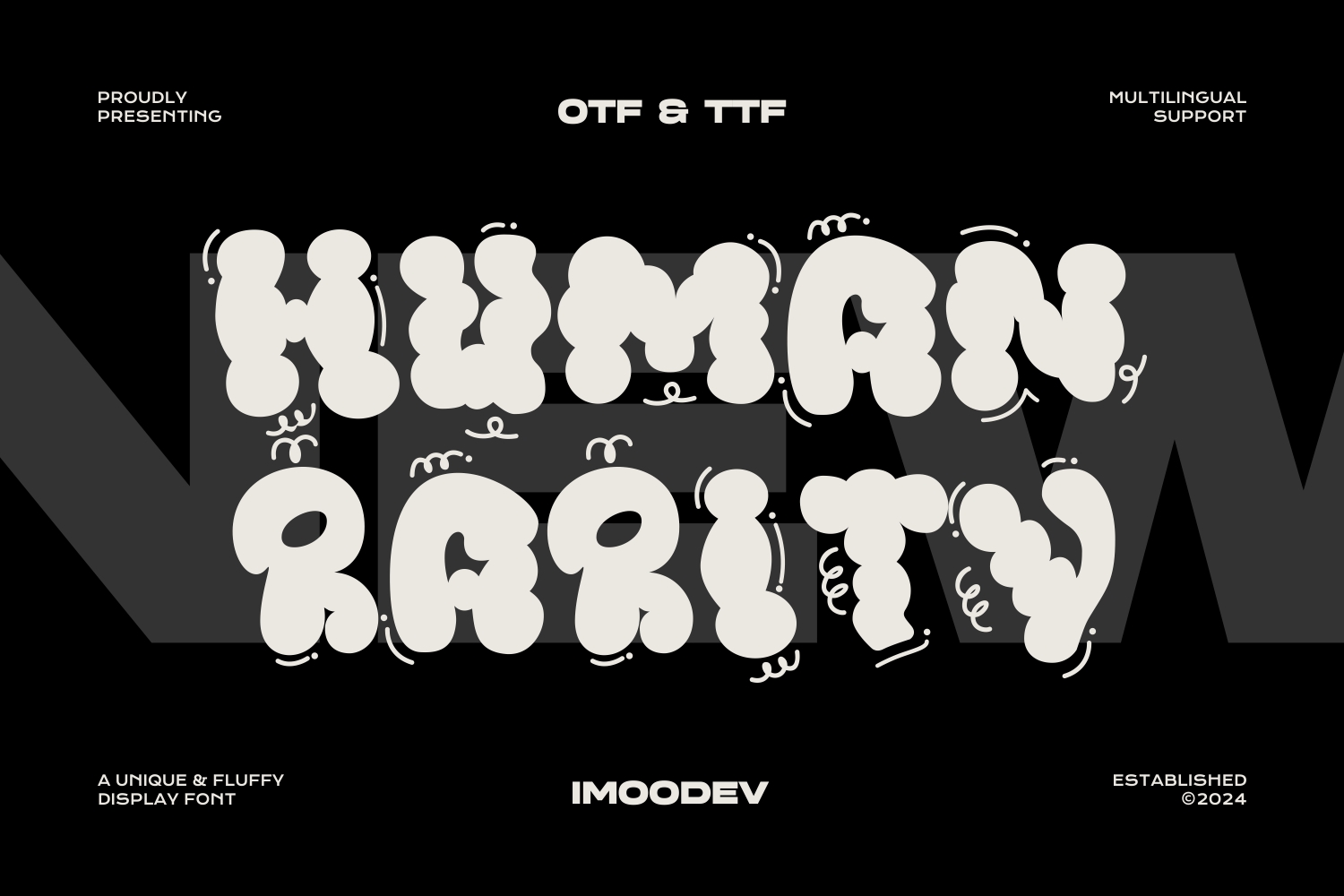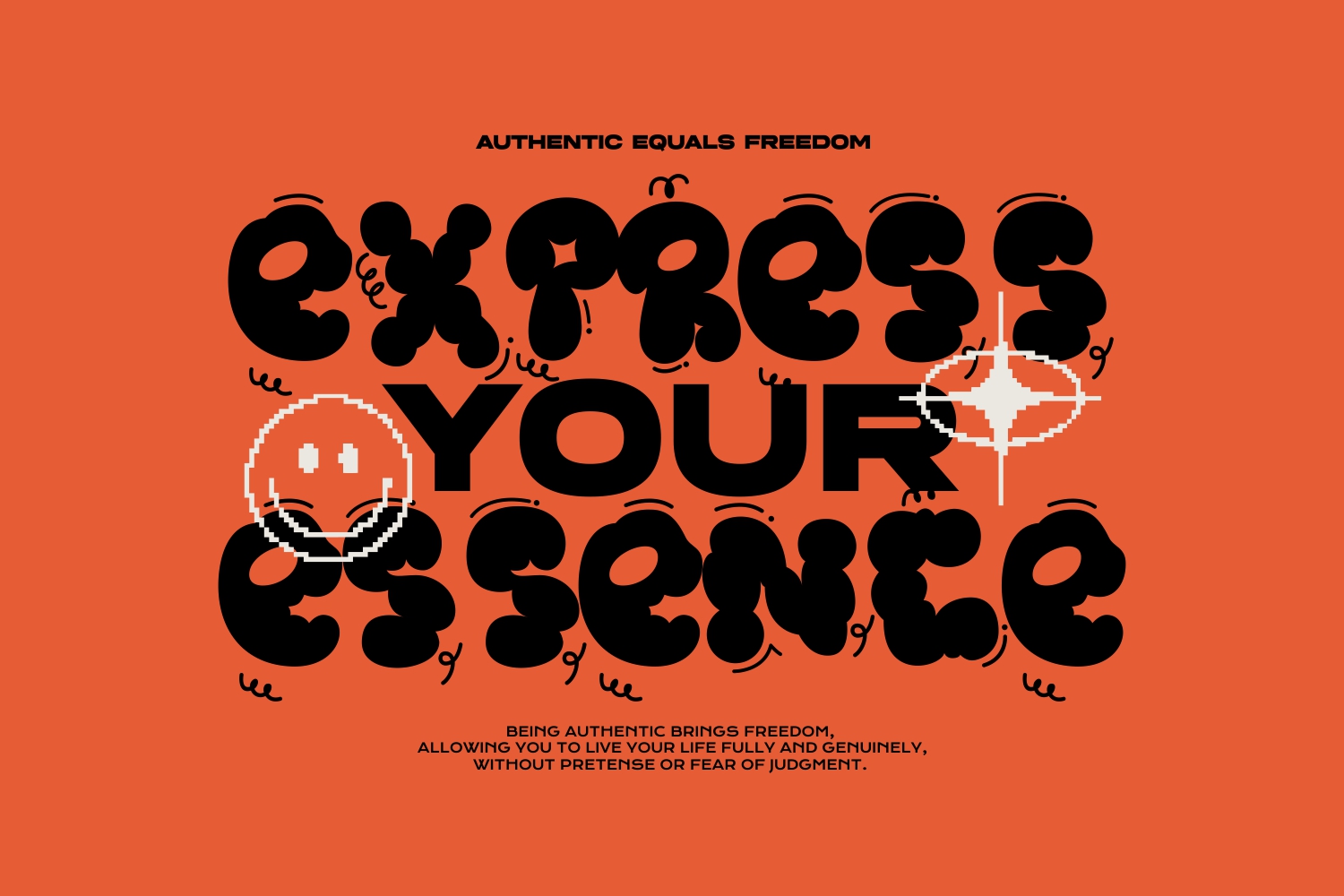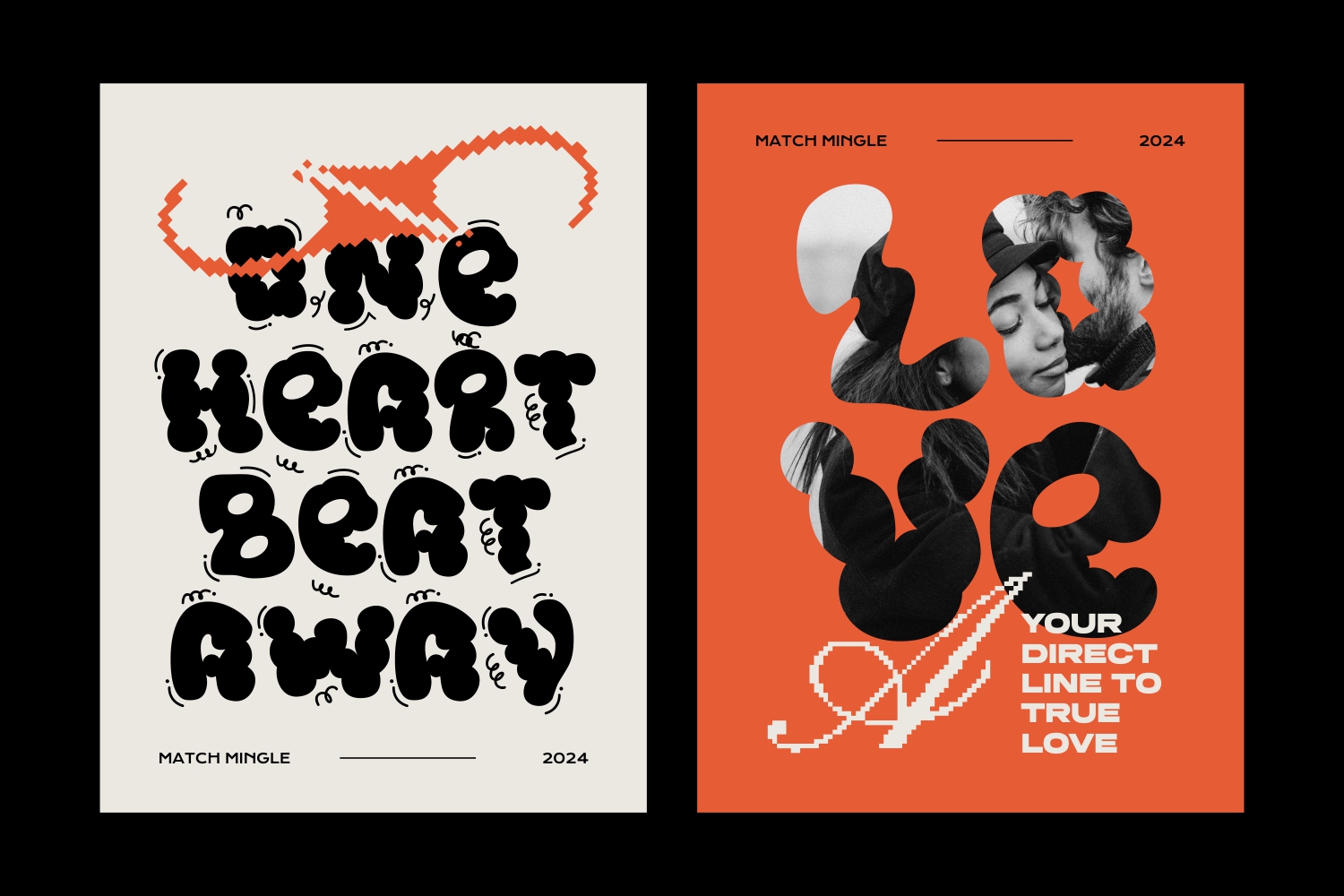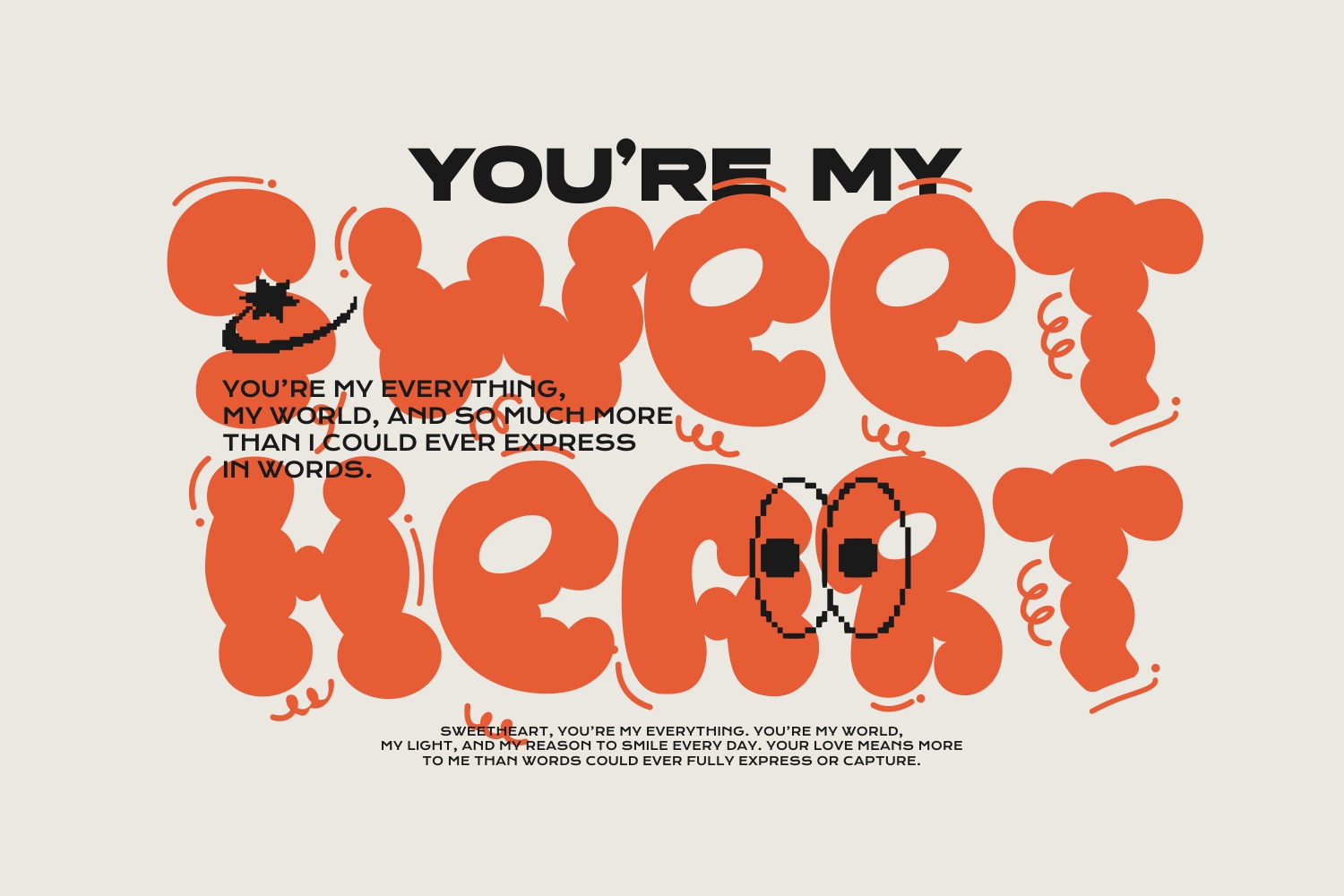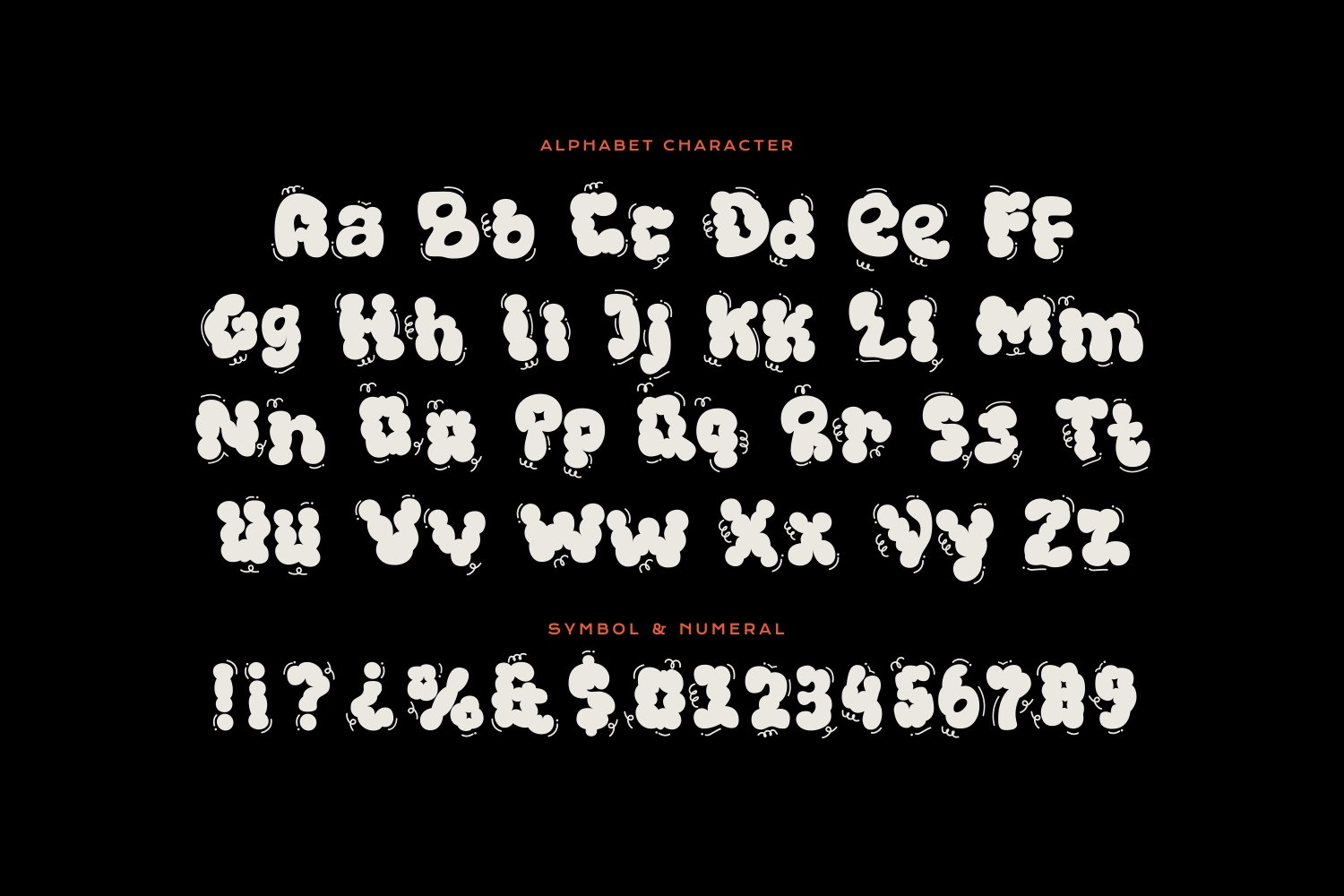
Human Rarity is a bold and playful display font with a fluffy, bubbly style that radiates joy and creativity. Its rounded, inflated shapes create a fun, approachable aesthetic, perfect for designs that aim to spread positivity and charm. The font’s unique hand-crafted details, combined with whimsical decorative elements, make it ideal for children’s products, playful branding, event posters, and creative social media content.
Packed with personality, Human Rarity transforms ordinary text into eye-catching headlines full of character. Its distinctive style works beautifully in colorful compositions, retro-inspired designs, and casual typographic projects that need a touch of humor and warmth. With multilingual support and versatile symbols, this font is ready to bring a sense of fun and uniqueness to any creative project.